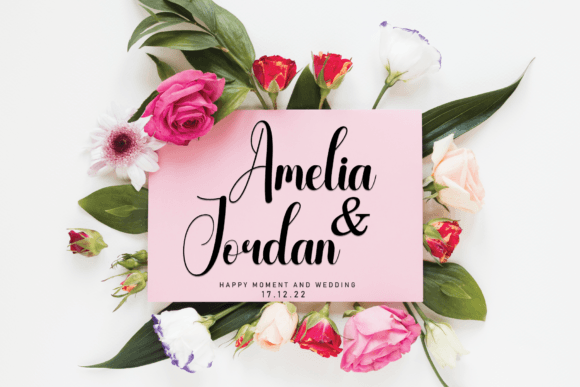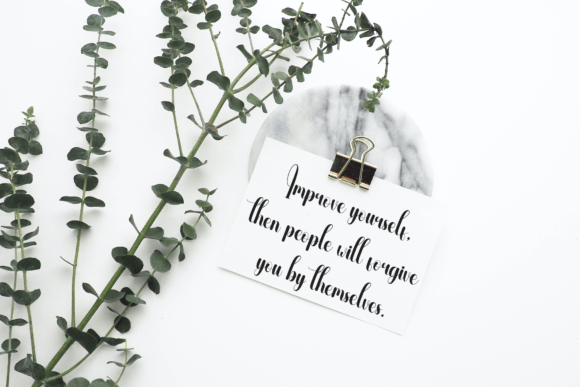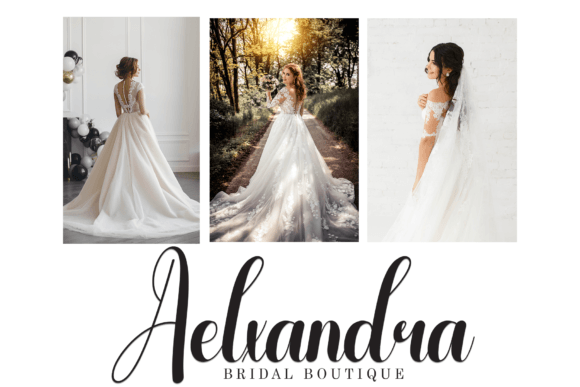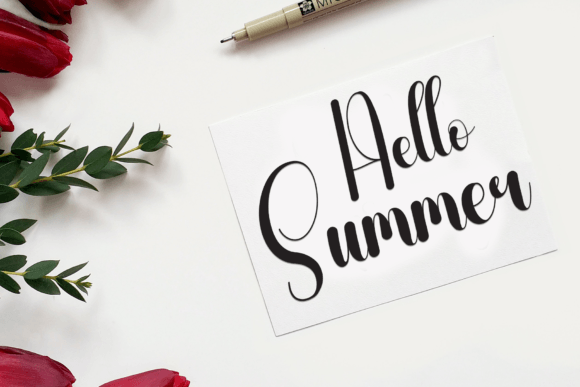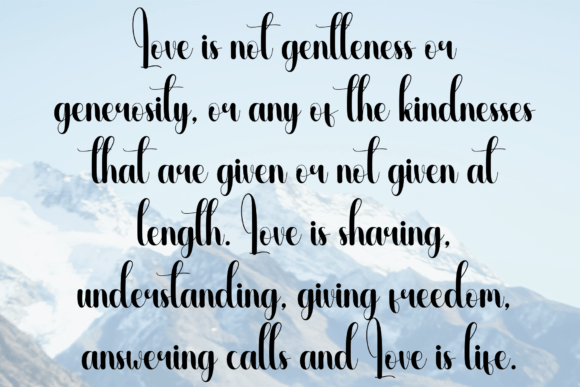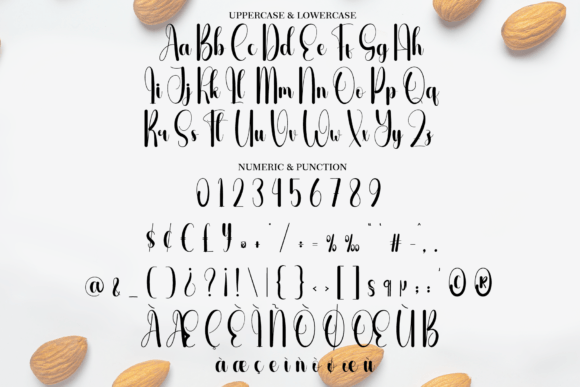
The Sweet Charm of Almonds Font: A Designer’s Delight
I still remember the time I was working on a wedding invitation project, and I was on a mission to find the perfect font. My client wanted something sweet, elegant, and playful, but I was coming up blank. That’s when I stumbled upon Almonds Font, and it was love at first sight! 💕 This beautiful handwritten font has been a game-changer for my designs, and I’m excited to share its charm with you.
An Honest Review of Almonds Font
So, what makes Almonds Font so special? Let’s dive into the good stuff! 😊
- ✨ Sweet and Friendly: Almonds Font has a warm, inviting feel that’s perfect for creating a sense of connection with your audience.
- ✅ Fresh and Casual: This font is ideal for designs that need a playful touch, from wedding invitations to social media graphics.
- ✅ Highly Legible: Despite its handwritten nature, Almonds Font is surprisingly easy to read, even at small sizes.
Of course, no font is perfect, and Almonds Font has a few quirks to be aware of:
- ⚠️ Limited Formality: While Almonds Font is amazing for casual designs, it may not be the best choice for more formal projects, like corporate branding or business reports.
- 🤔 Glyph Limitations: Some users have noted that the font’s glyph set could be more extensive, particularly for non-English languages.
The Story Behind Almonds Font
Almonds Font was created by a talented type designer who wanted to craft a font that would bring a sense of warmth and friendliness to designs. Inspired by the beauty of handwritten letters, the designer poured their heart into creating a font that’s both elegant and approachable.
- Q: What type of designs is Almonds Font best suited for?
- A: Almonds Font is perfect for designs that need a sweet, friendly touch, like wedding invitations, cards, and social media graphics.
- Q: Is Almonds Font available in different languages?
- A: Almonds Font may not have an extensive glyph set, but it’s still a great choice for English-language designs.